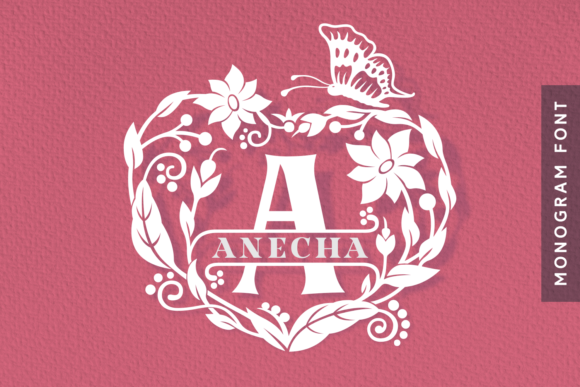
Introducing Anecha Font, a ravishing decorative font that will captivate your designs with its incredibly detailed ornaments. Step into a world of creativity where imagination meets elegance, and transform your apparel brand into a visual masterpiece.
Anecha Font is not just a font; it's an artistic expression that speaks volumes about your brand's personality. Its intricate details and swashes, accessible with PUA encoding, make it a versatile choice for any design project. Whether you're creating logos, posters, social media graphics, or eye-catching headlines, Anecha Font will make your designs stand out.
With its unique style and captivating presence, Anecha Font will elevate your designs to new heights. It's the perfect choice for fashion-forward brands that want to make a statement and leave a lasting impression. Let Anecha Font be your creative companion, guiding you towards designs that are both beautiful and impactful.
But Anecha Font is more than just a tool; it's an experience. As you work with this font, you'll feel the passion and artistry that went into its creation. Each character carries a story, each ornament a symbol of creativity. Let Anecha Font ignite your imagination and inspire you to create designs that are truly extraordinary.